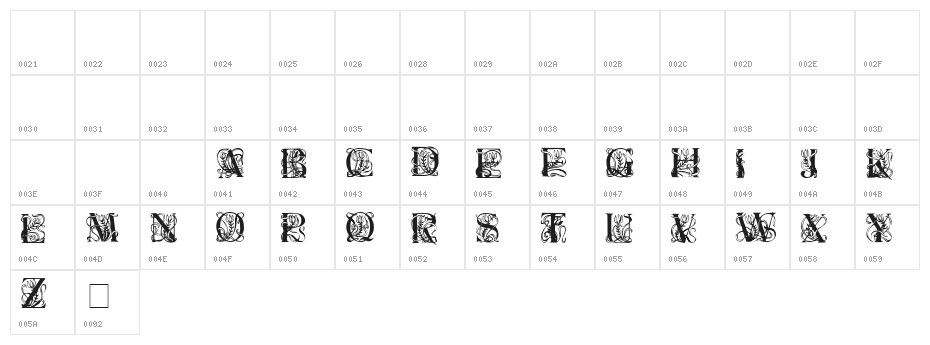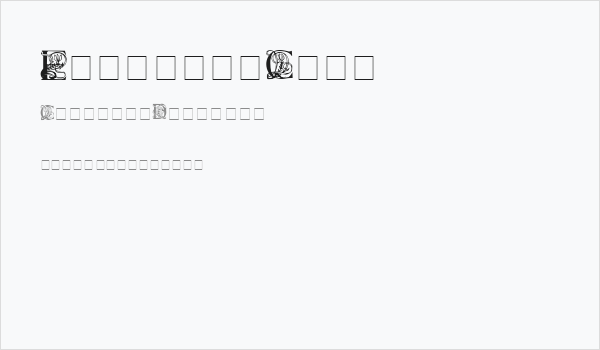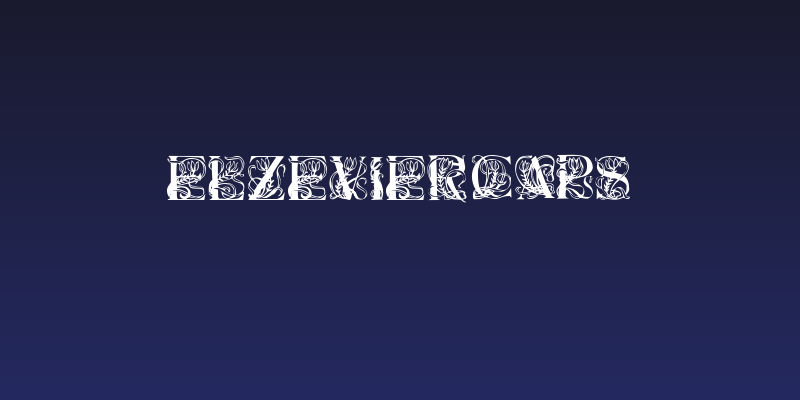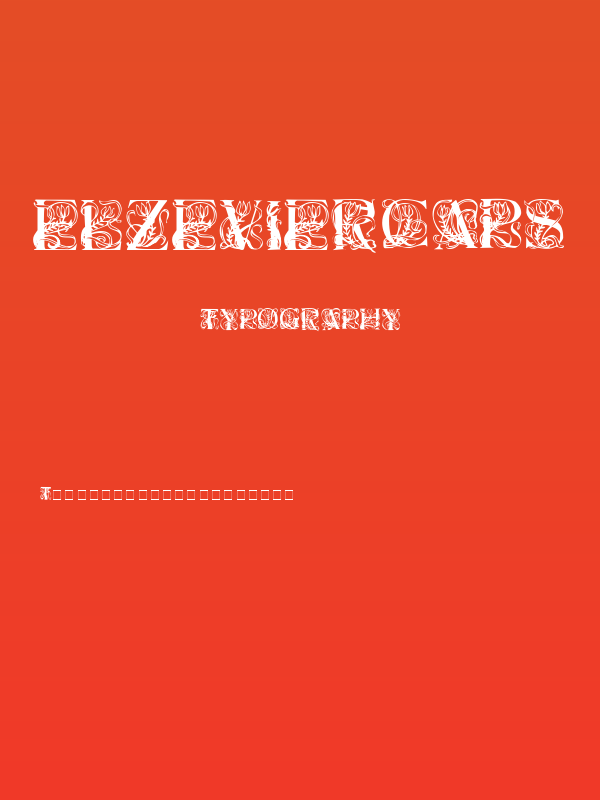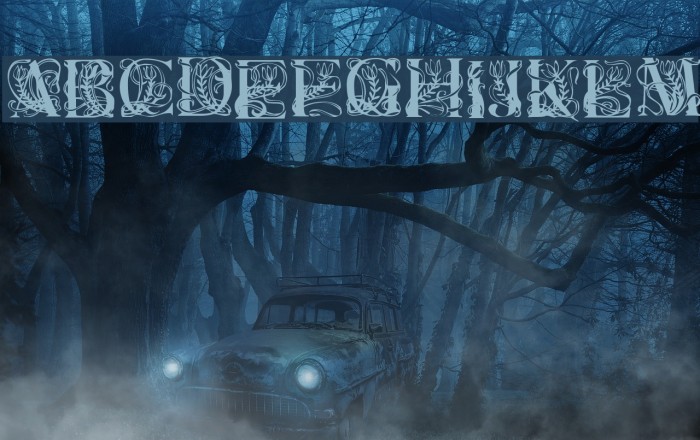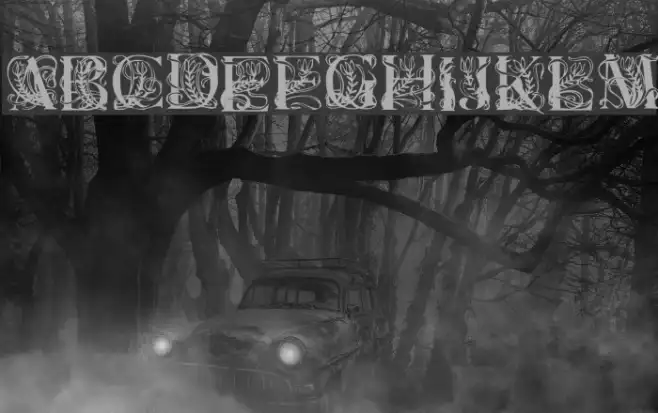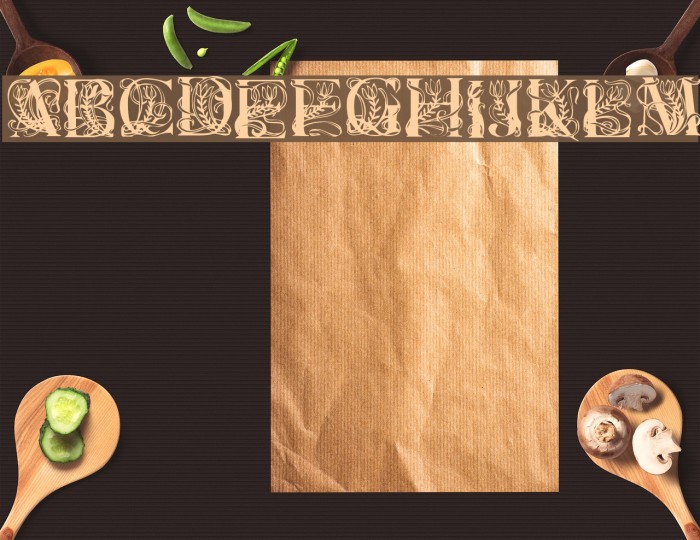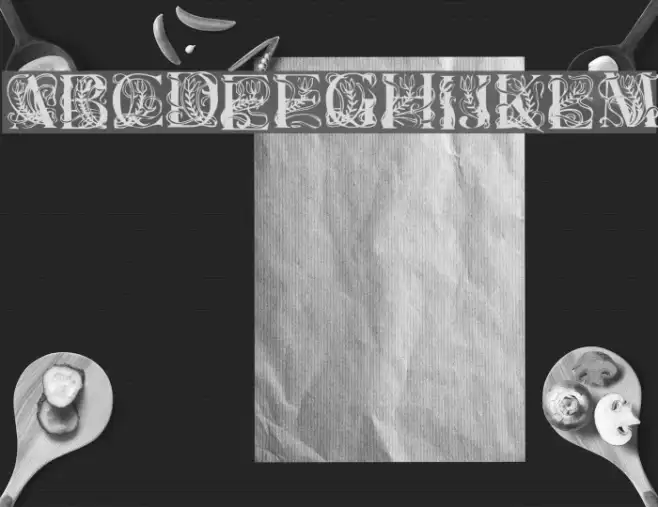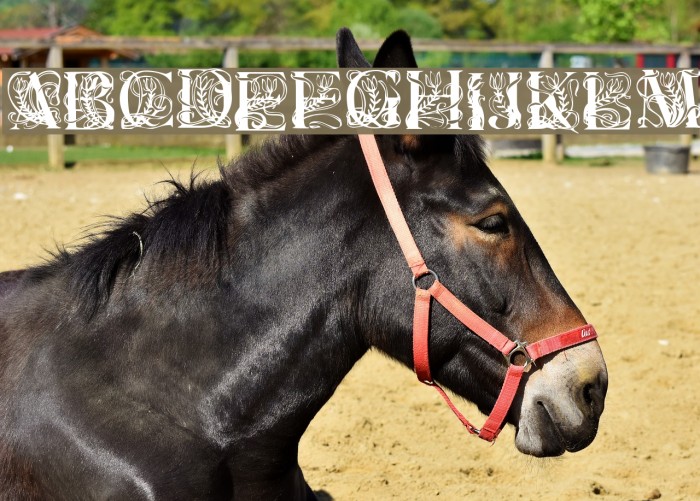
Elzevier Caps Font
Elzevier Caps Description
This font features an intricate and decorative style, characterized by elaborate swirls and embellishments that intertwine with the main letterforms. Each character is crafted with a high level of detail, making it visually striking and ornate. The uppercase letters are the primary focus, showcasing a unique blend of traditional serif elements with modern decorative flair. The design is reminiscent of historical typefaces, yet it maintains a contemporary edge, making it suitable for projects that require a touch of elegance and sophistication.
| Use Case | Logos, Headlines |
| Proposed Projects | Ideal for use in wedding invitations, luxury branding, high-end product packaging, and decorative headlines. |